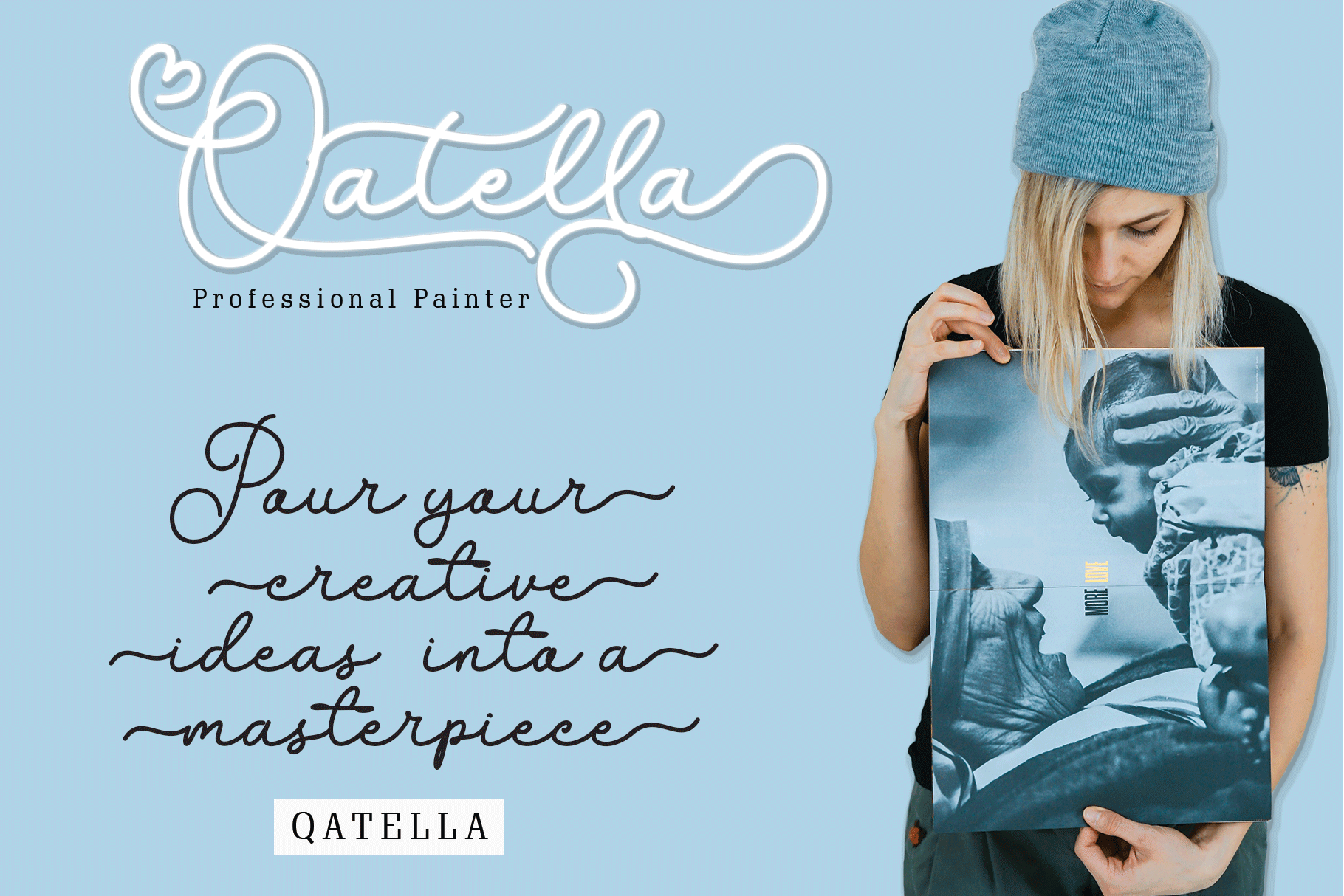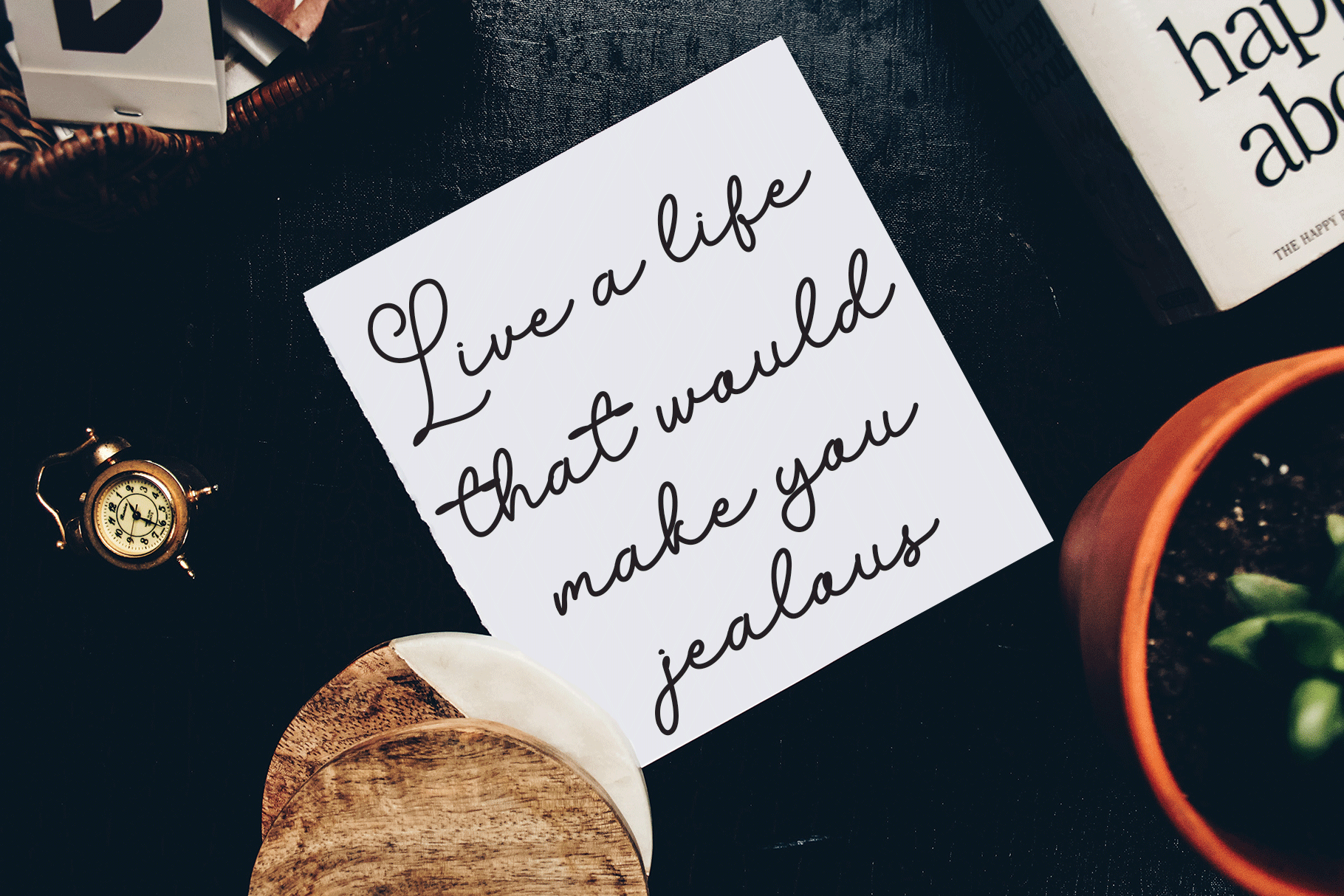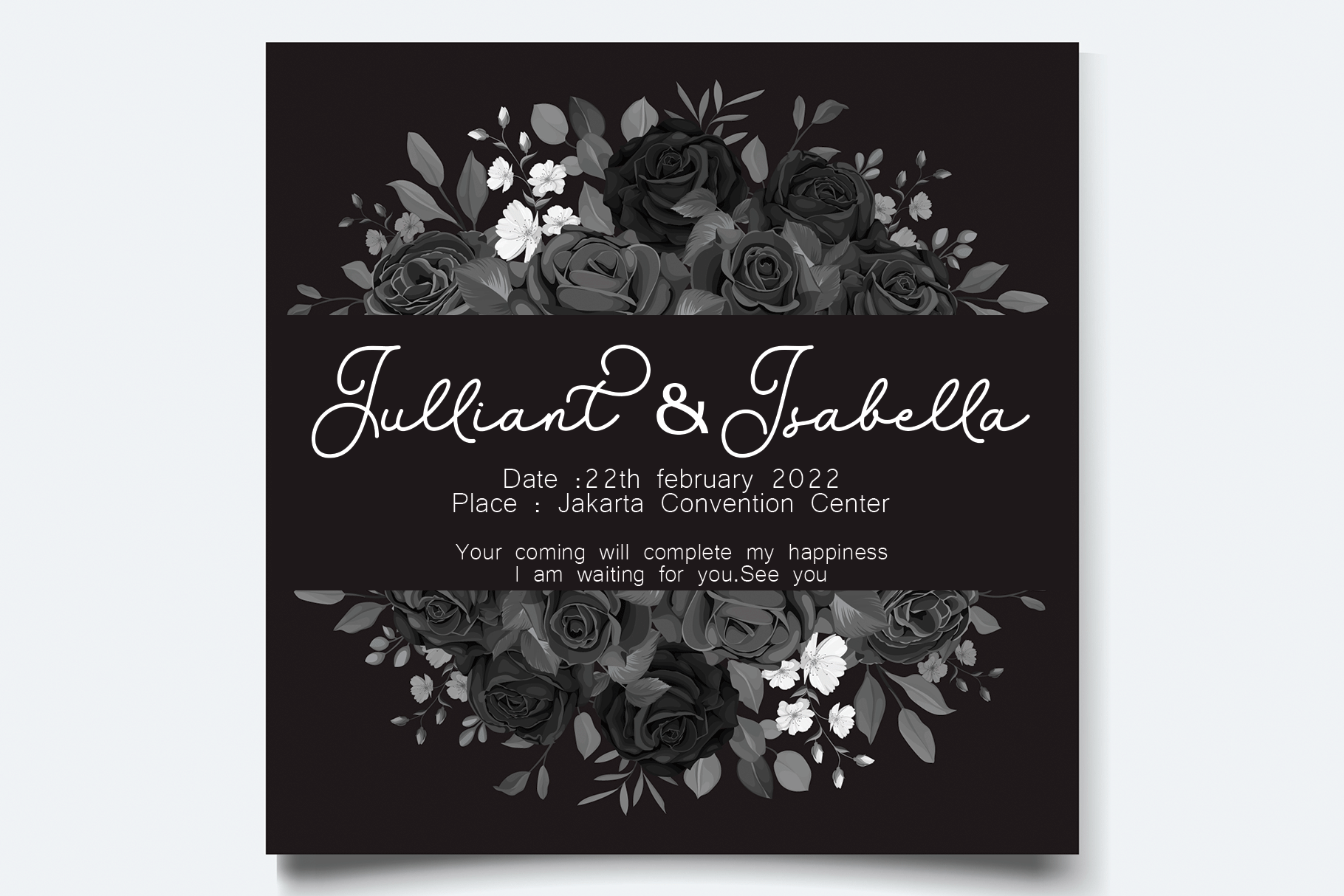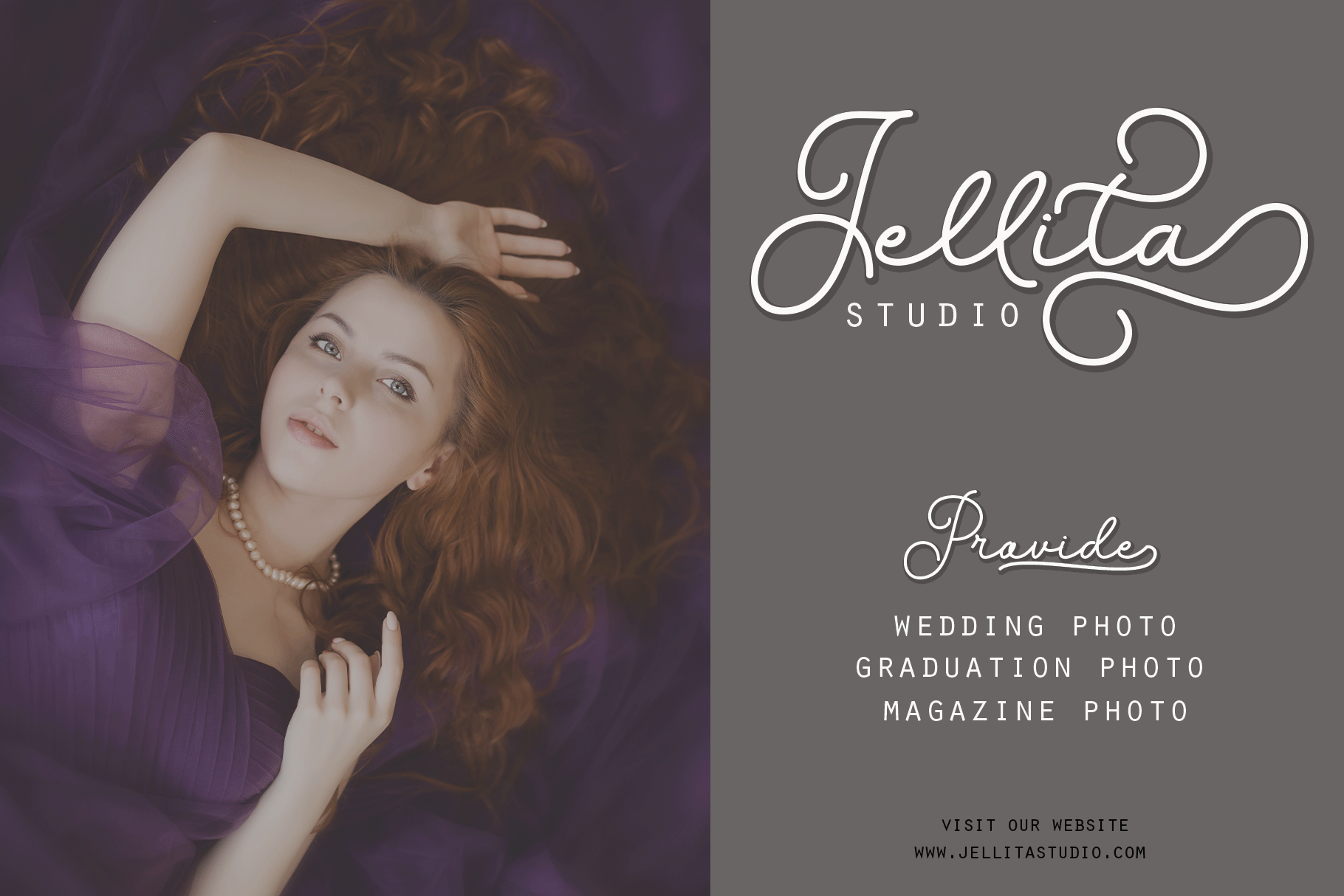
Bellagia Handwritten Font
Bellagia signature font is this amazing typeface handmade script font we created in freestyle for those of you who do work and crafts.
It’s perfect for any type of work you’re working various purposes such as logos, wedding invitations, headings, t-shirts, letterheads, signage, labels, news, posters, badges etc.
OpenType features with alternative styles, ligatures, and multiple language support.